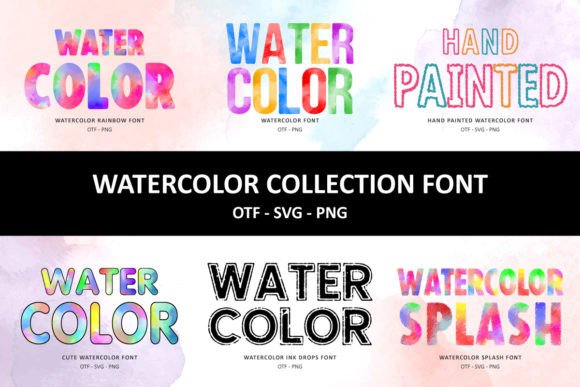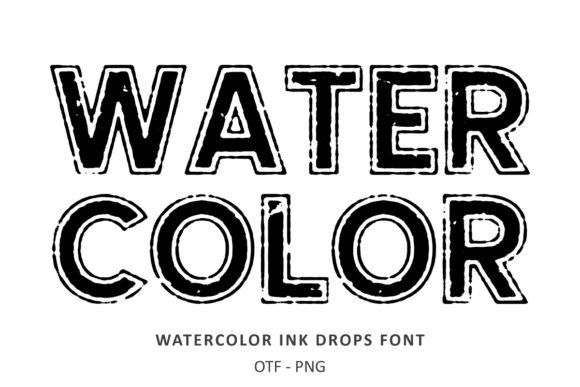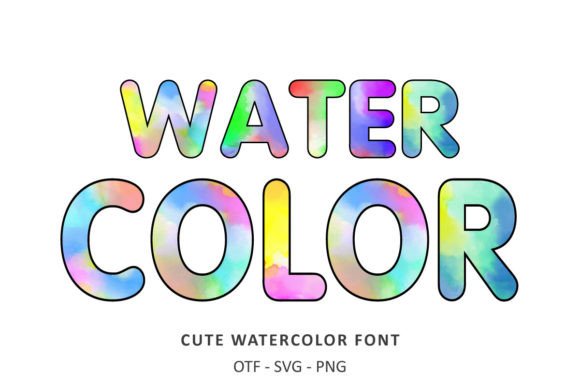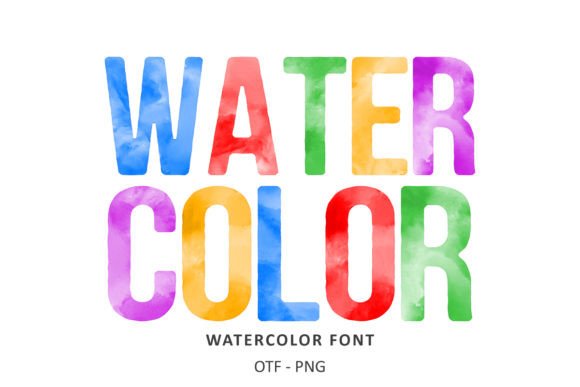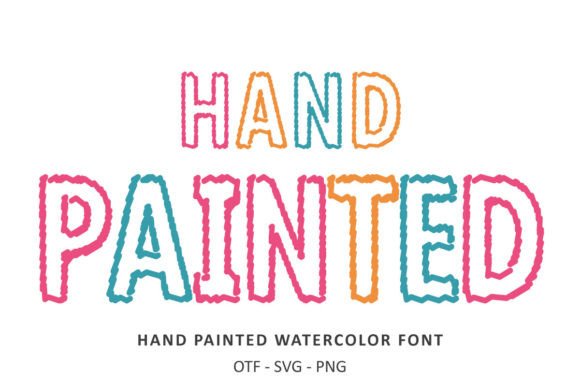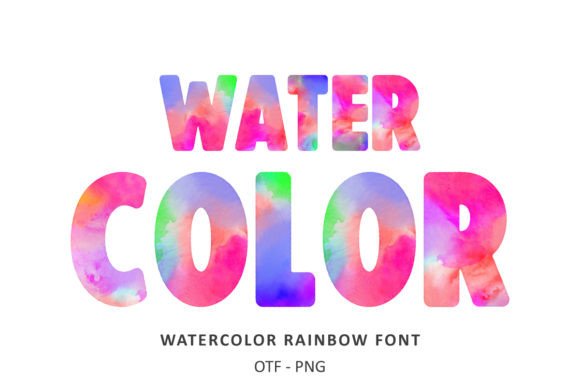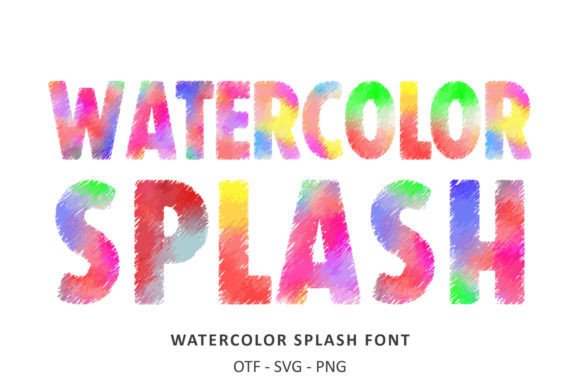
Watercolor Collection Font
Watercolor Collection Font Set gathers 6 eye-catching watercolor fonts that have letters that look like they were drawn or written with watercolor. With these unique fonts, you will certainly make your designs stand out!